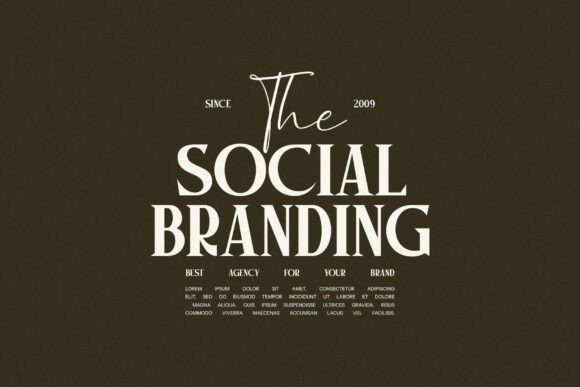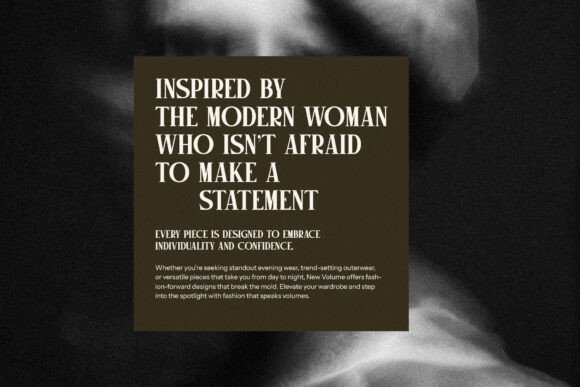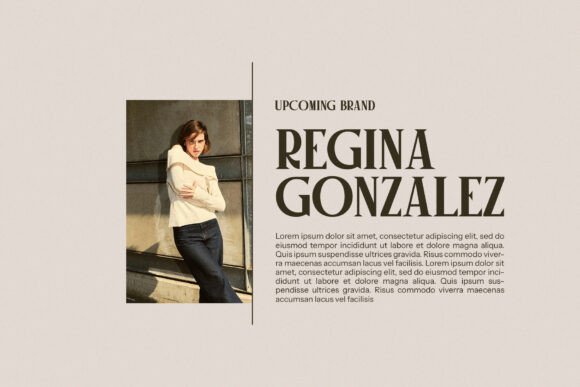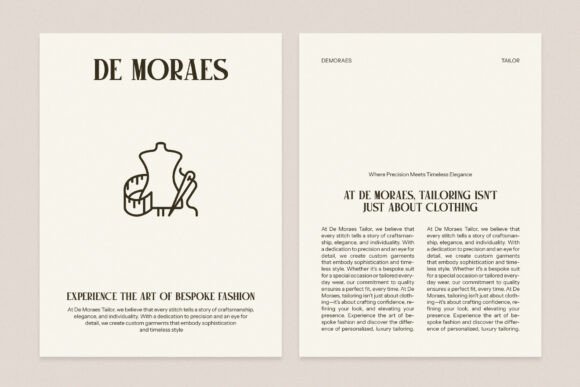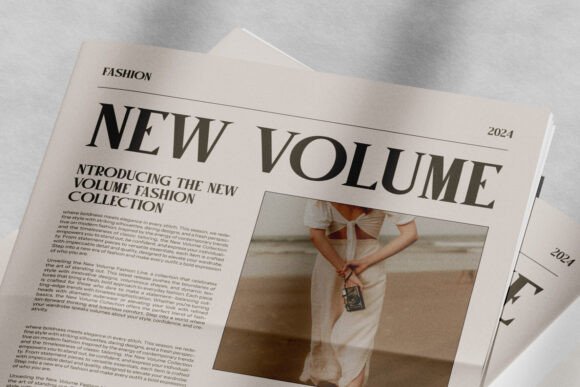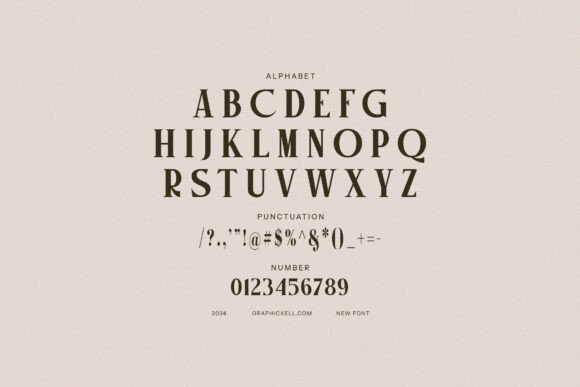
Introduction to Milkin Font
Milkin is a stylish and graceful serif font with smooth curves and a modern look.
It’s perfect for creating elegant designs, like logos, invitations, and posters, giving a classy and polished feel to any project .
Key Features of Milkin Font
Why Choose Milkin Font?